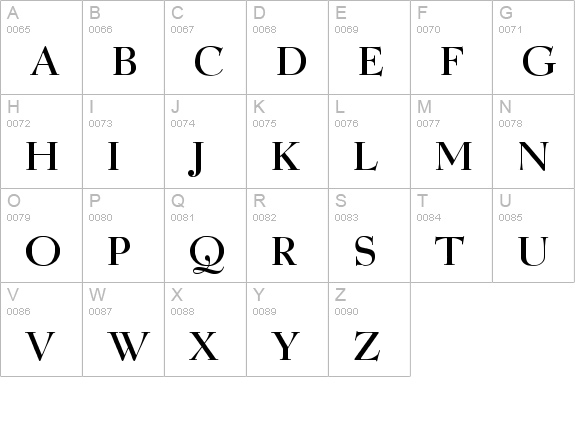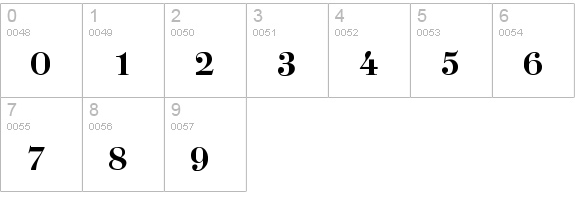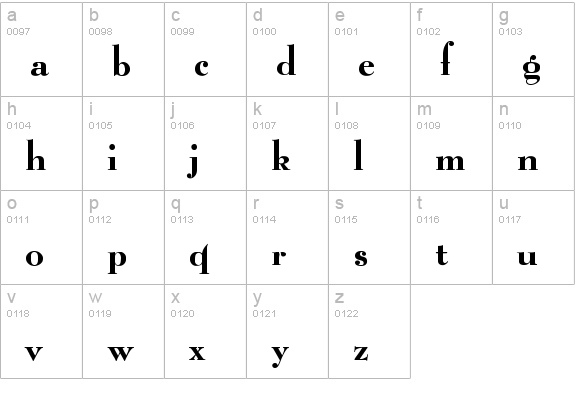
Lucian Regular is the standard, neutral variant in the Lucian typeface family \xE2\x80\x94 well suited to general body text, paragraphs, and standard typographic work.
Lucian Regular font is a versatile typeface that exudes elegance and modernity. With its clean lines and balanced proportions, Lucian Regular is perfect for a wide range of design projects, from branding to editorial layouts. This font strikes the perfect balance between readability and style, making it suitable for both digital and print applications. Best of all, Lucian Regular is available for free download at FontsMarket.com. Whether you're a seasoned designer looking to add a new font to your collection or a beginner searching for the perfect typeface for your next project, Lucian Regular is a fantastic choice. Download it today and elevate your design work with this sophisticated and timeless font.